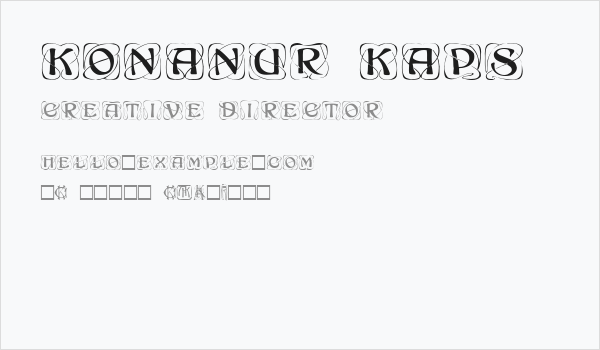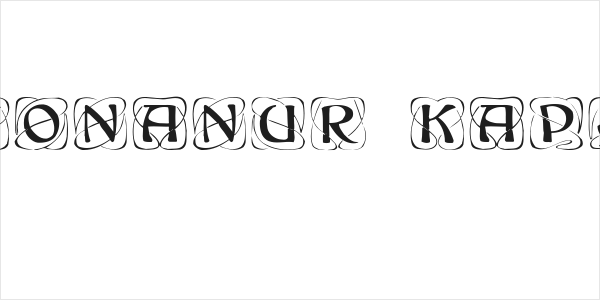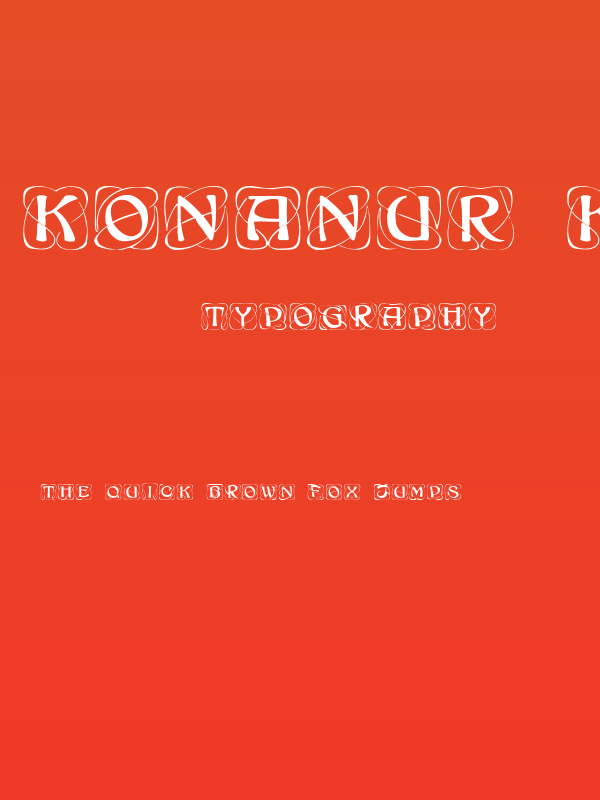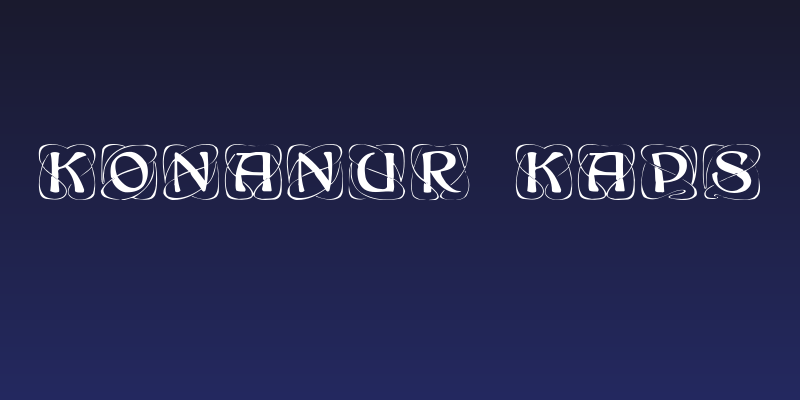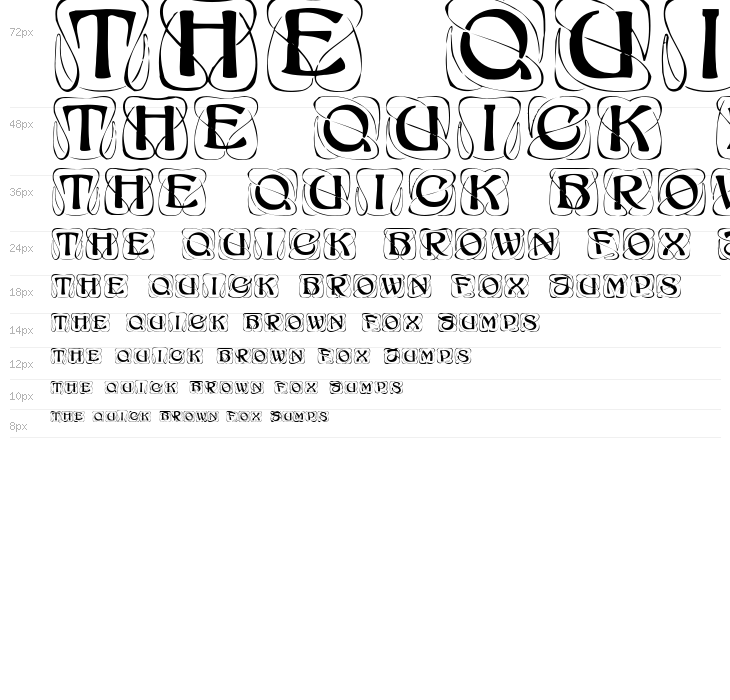
Konanur Kaps Font
Konanur Kaps Description
This font features a highly decorative and intricate design, with each character enclosed in a square frame. The letters are bold and exhibit a unique, swirling pattern that adds an artistic flair. The uppercase and lowercase letters maintain a consistent style, with the uppercase being slightly more elaborate. The numbers and special characters follow the same ornate design, making the font suitable for creative and eye-catching projects. The overall appearance is both modern and artistic, with a touch of vintage elegance.
| Use Case | Logos, Headlines, Artistic Projects |
| Proposed Projects | Ideal for artistic posters, unique branding, album covers, and creative invitations. |